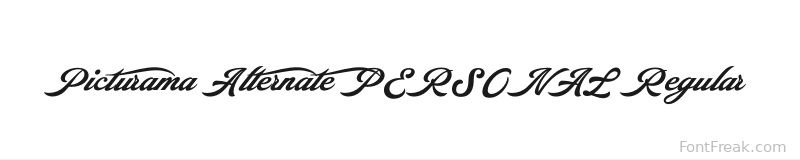
Picturama Founder PERSONAL Regular
Picturama Alternate PERSONAL Regular
The Picturama Founder PERSONAL Regular font by Mans Greback is an elegant display typeface that showcases a refined script style. This font is characterized by its flowing curves and sophisticated letterforms, making it a harmonious blend of artistic expression and readability. The stroke weight is moderate, providing a balanced look, while its graceful curves create a sense of movement and fluidity. The generous spacing between letters enhances legibility, ensuring that the text remains clear even at smaller sizes.
This font is particularly well-suited for a variety of creative applications. Graphic designers can utilize it for wedding invitations, where its romantic flair adds a touch of elegance to the event. Additionally, it works beautifully in branding projects, such as restaurant menus, where the inviting style can enhance the dining experience. Movie posters can also benefit from the unique character of Picturama Founder PERSONAL Regular, drawing attention and evoking emotion in viewers. Content creators looking to make their projects stand out will find this font ideal for social media graphics and personal blogs, where a distinctive touch can help convey their unique voice.
What truly sets this font apart is its ability to blend beauty with functionality. Its unique aesthetic, combined with its versatility, ensures that it can elevate any design project, making it a valuable addition to any designer's toolkit. Whether for personal or professional use, this font captures attention and leaves a lasting impression.